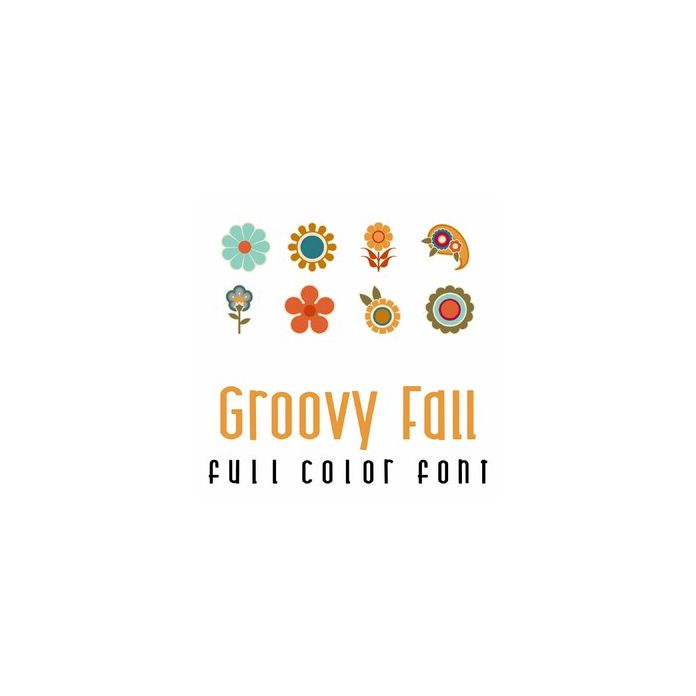
This fun full color retro style doodlebat font features 26 groovy Fall florals. Perfect for cards, crafts, gifts, decor, scrap book pages, planner stickers and more!